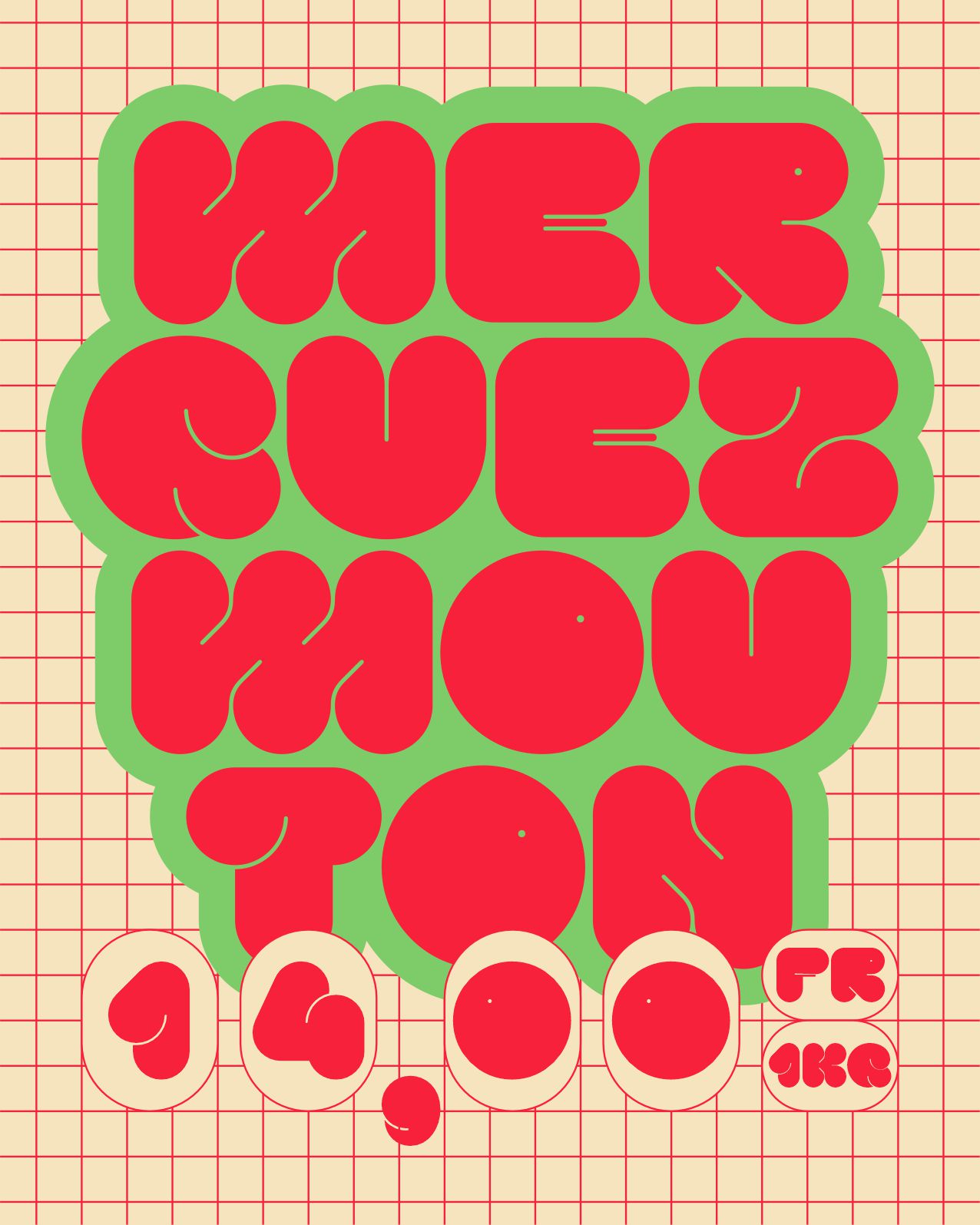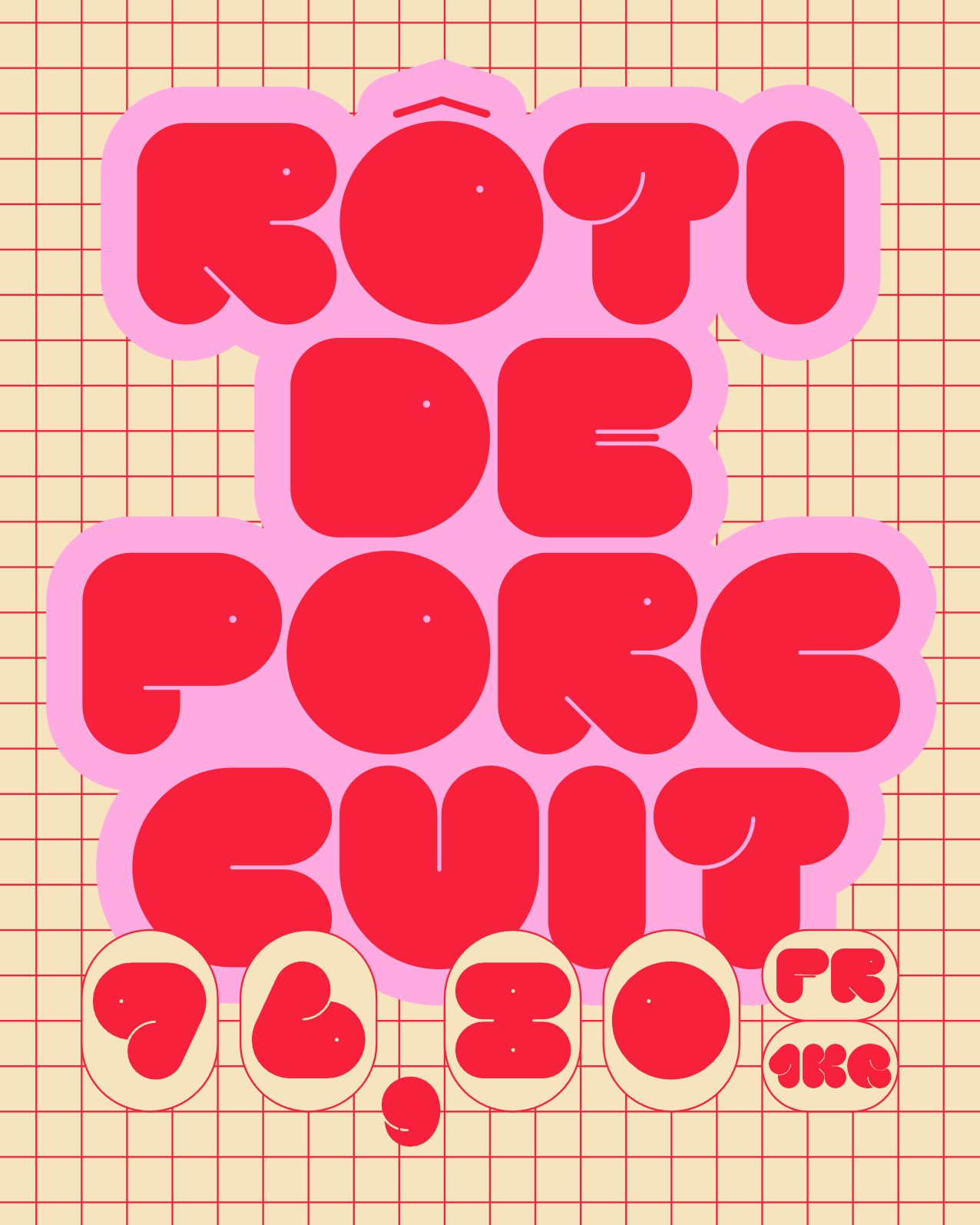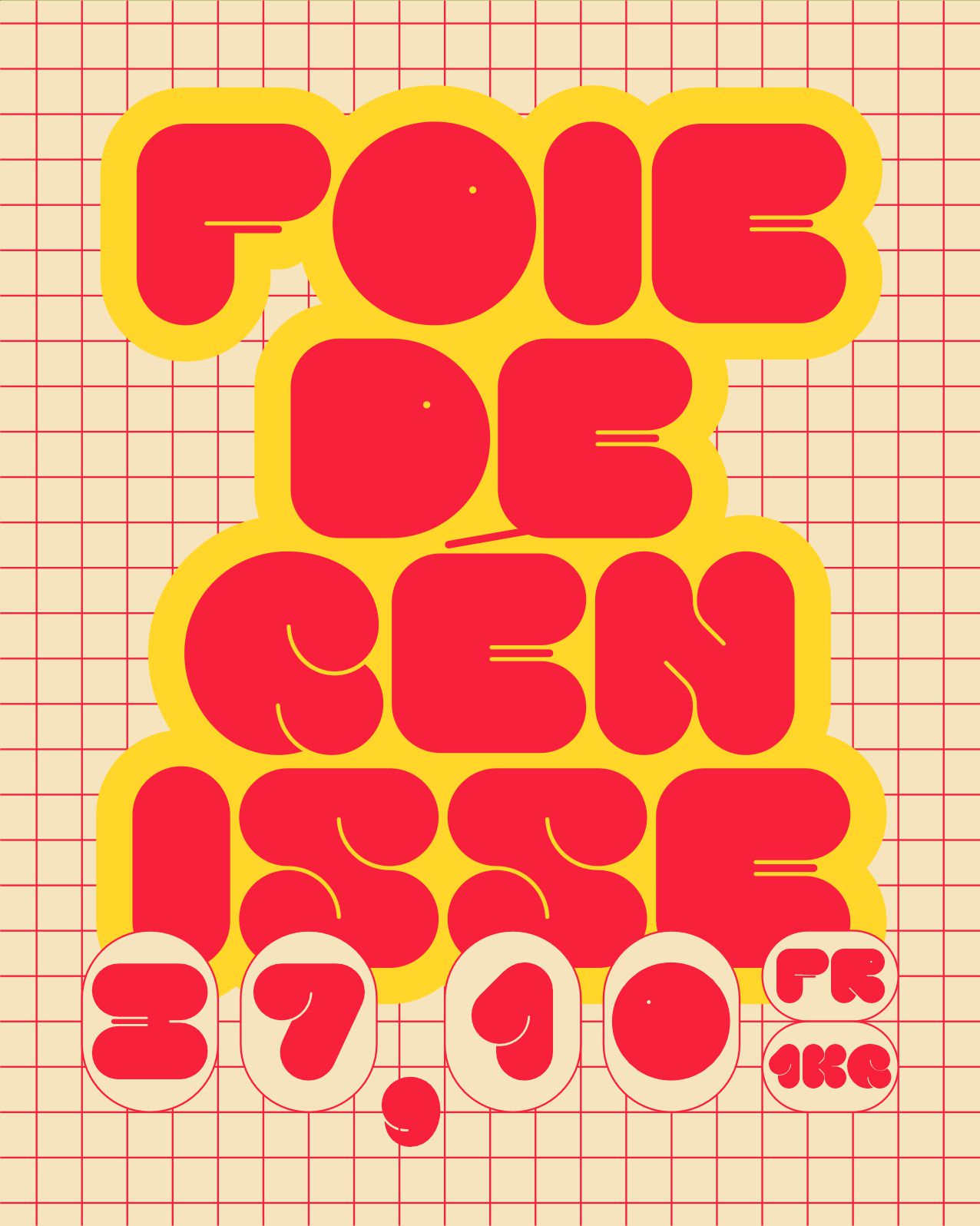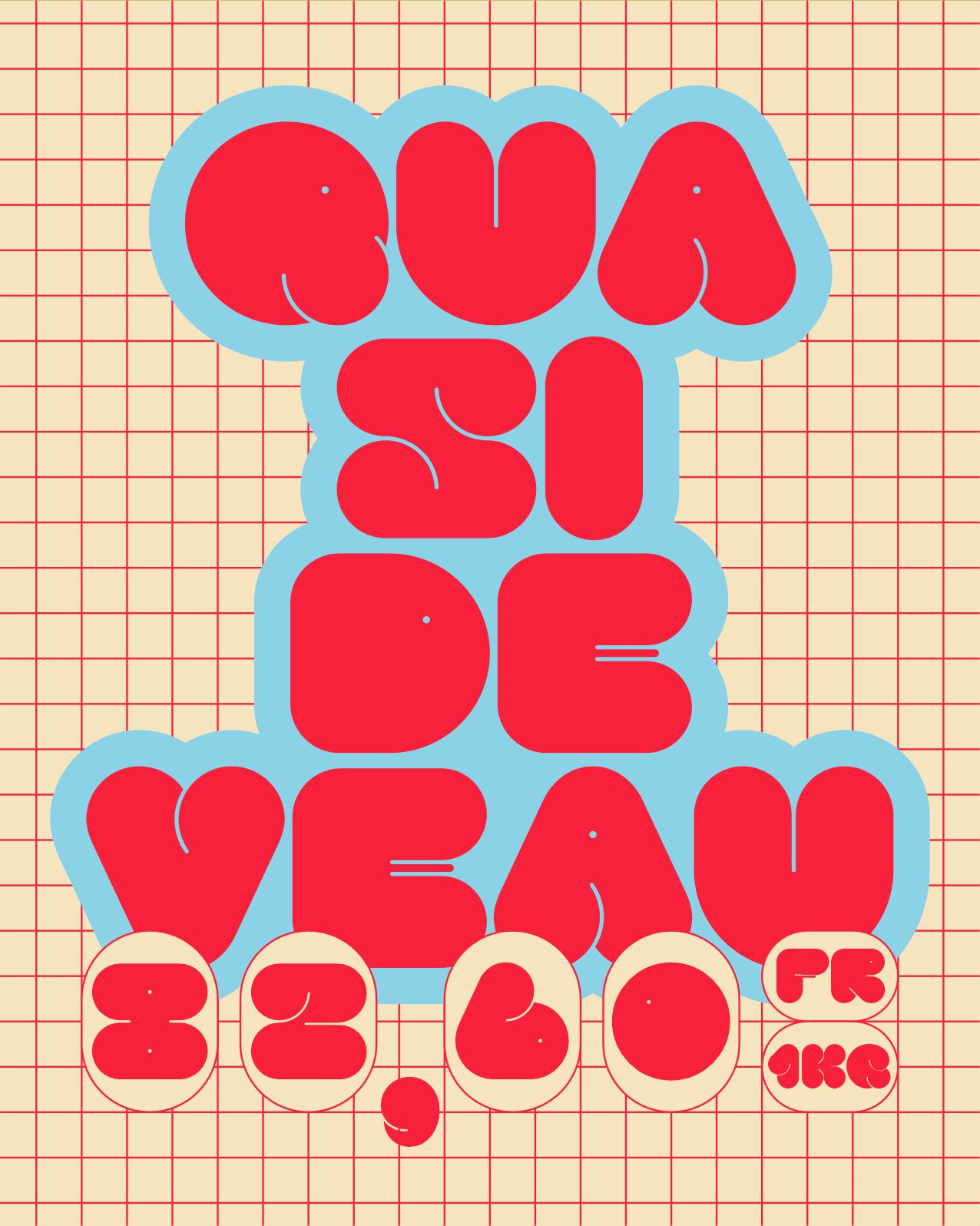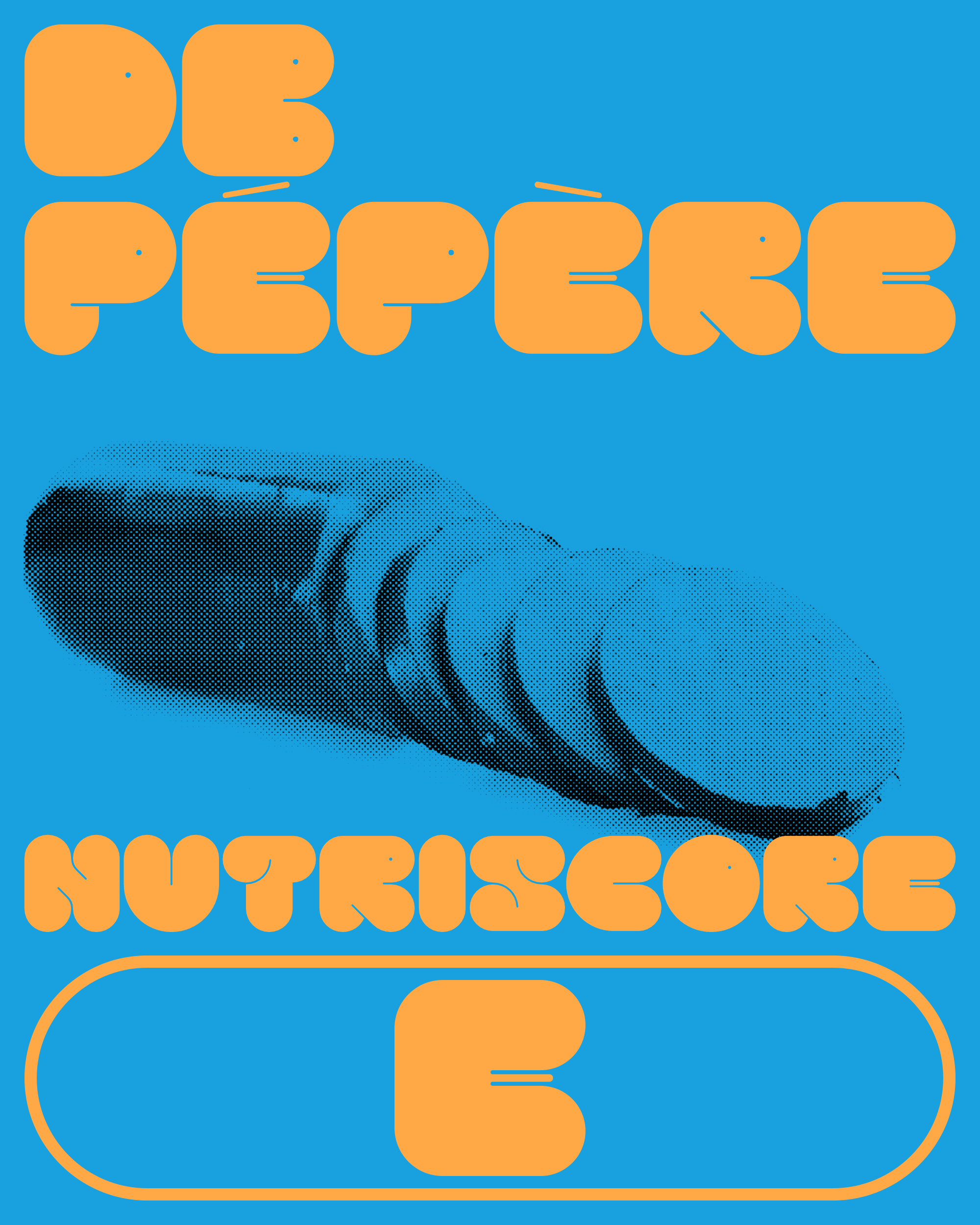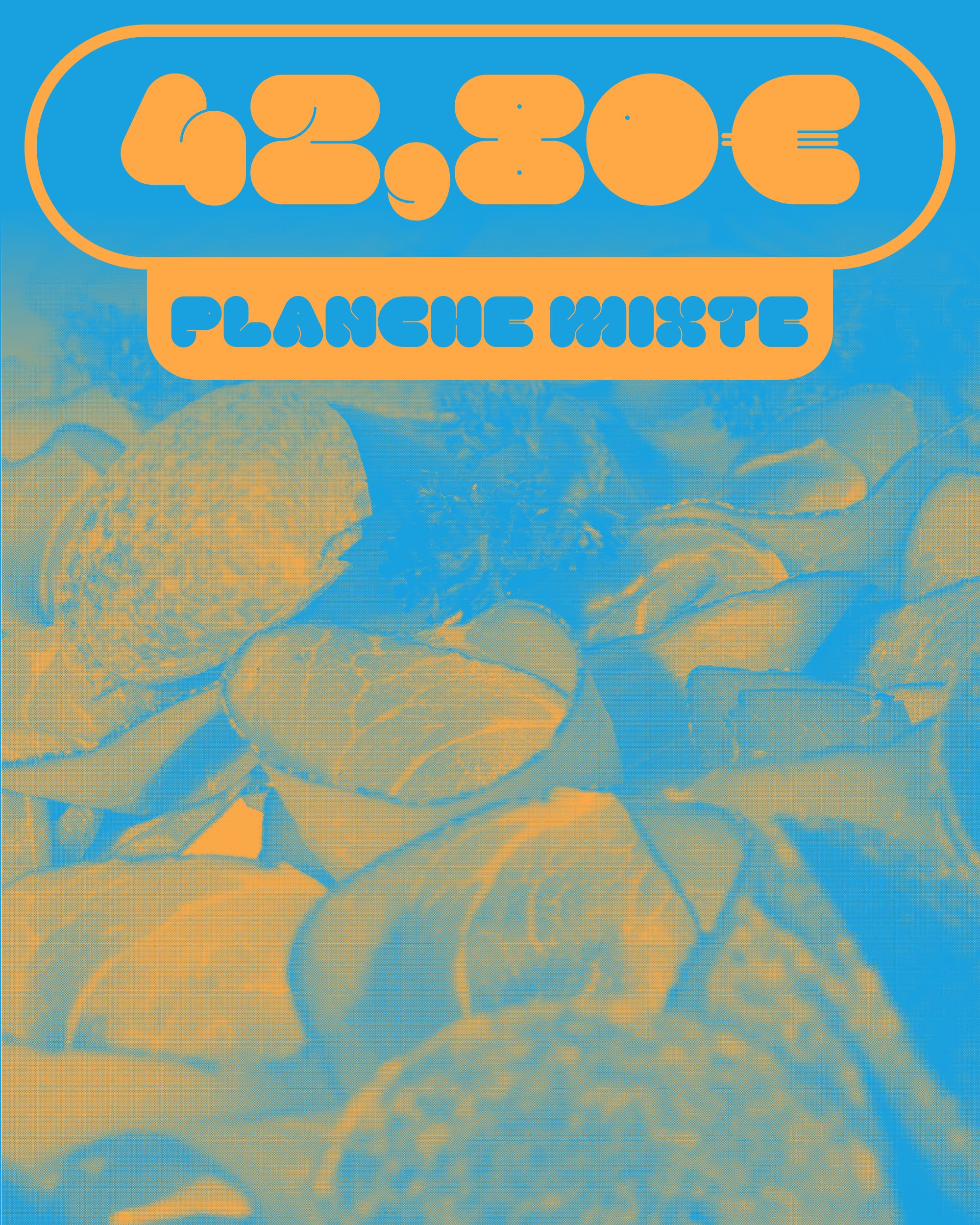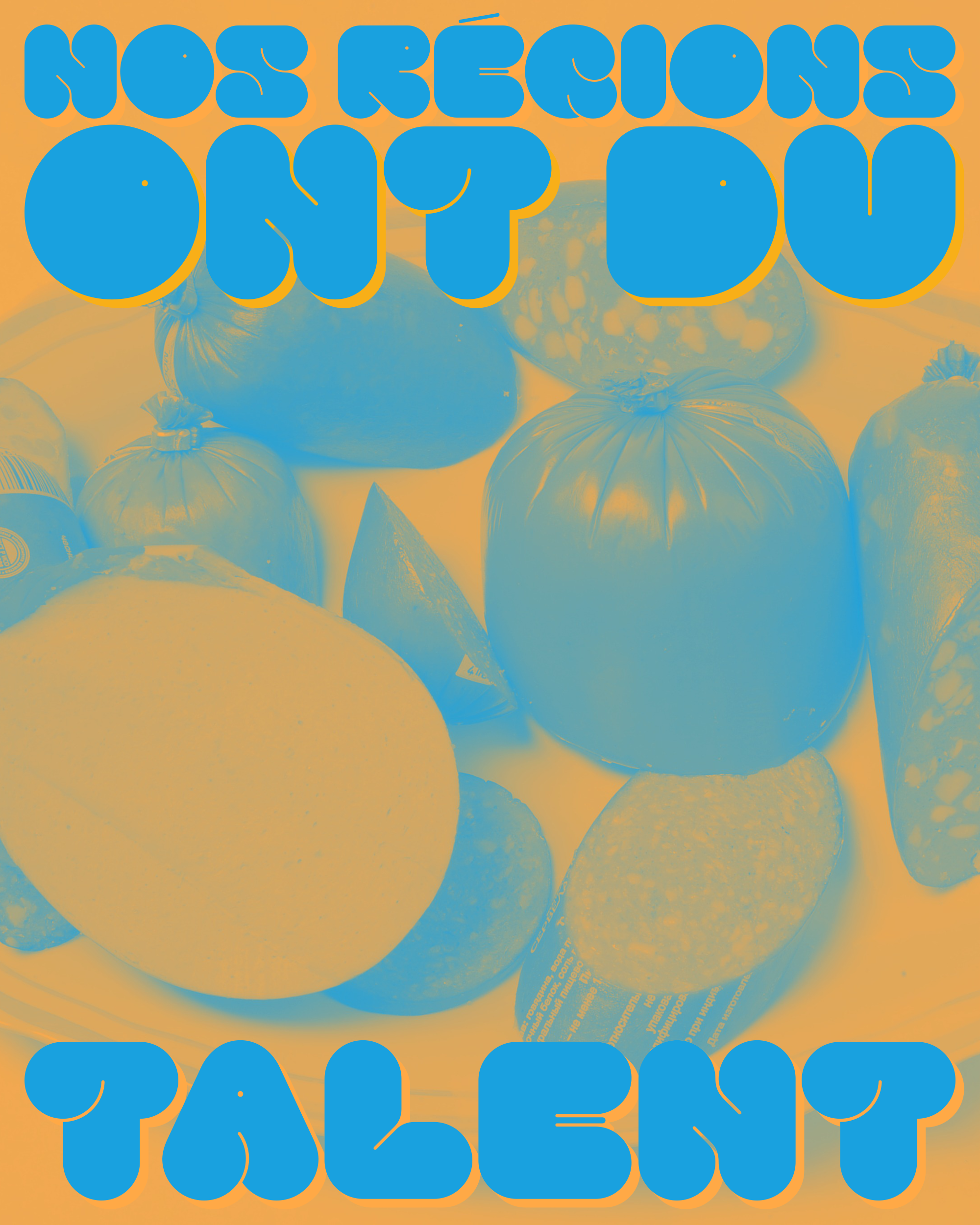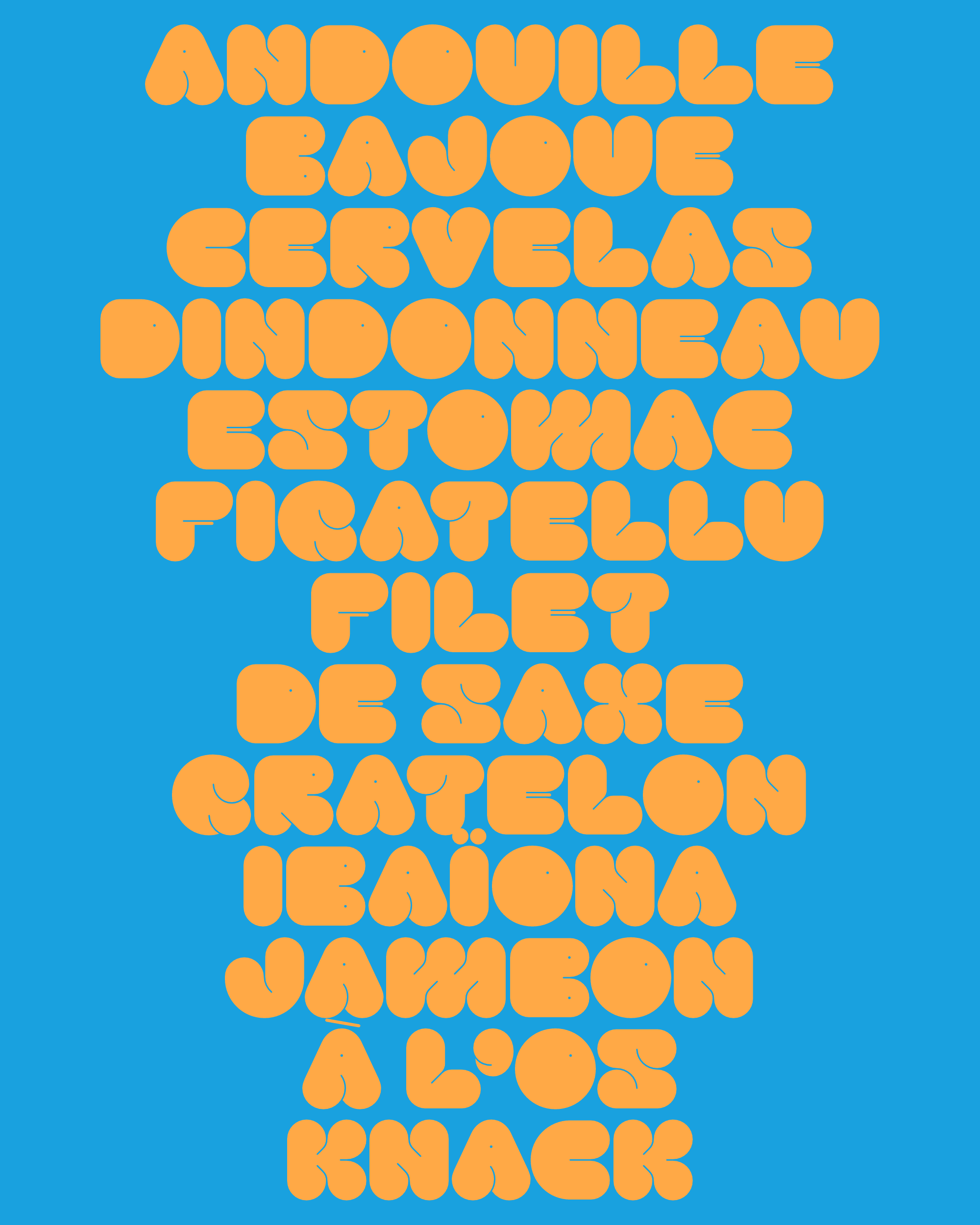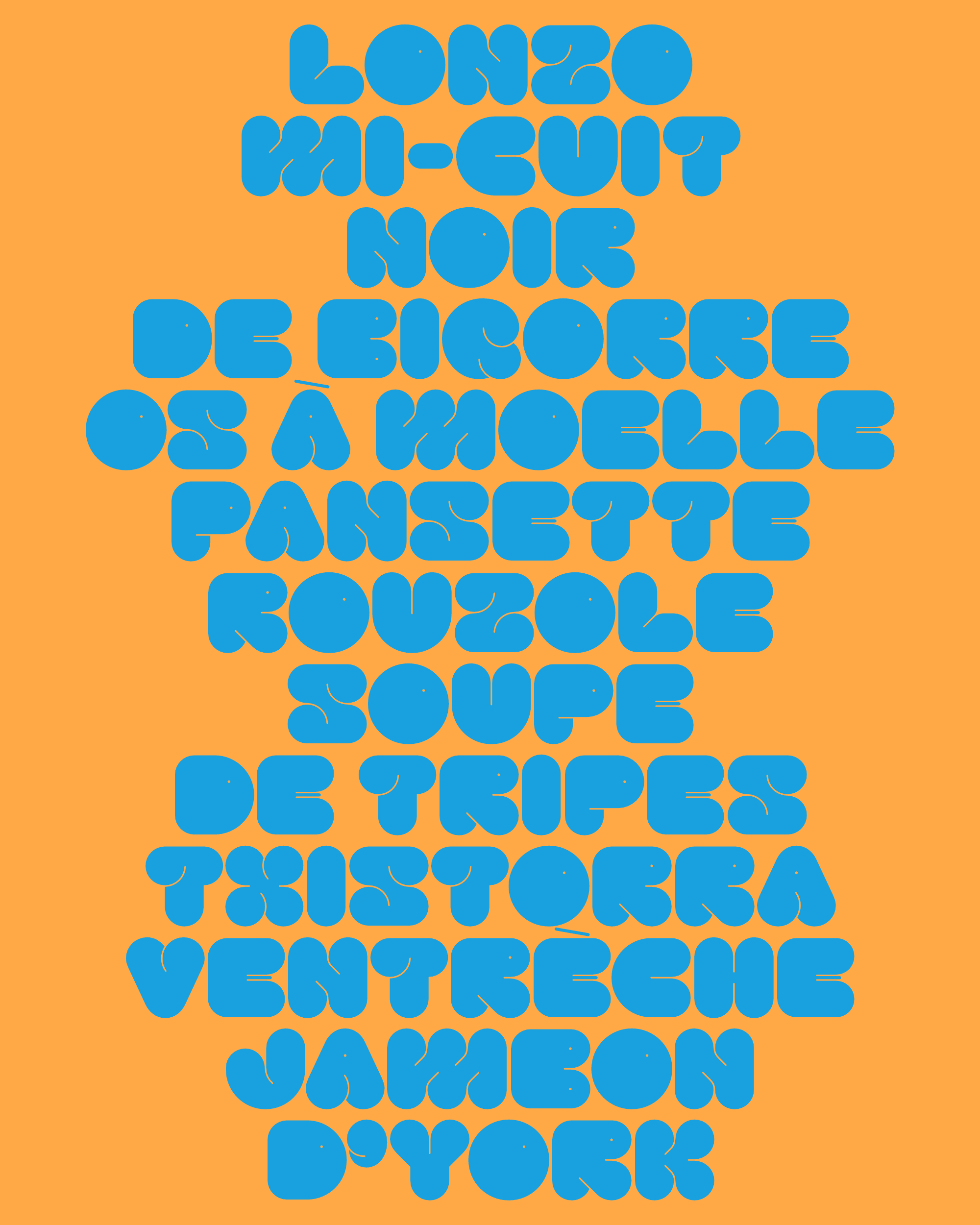
Pépère
Pépère is a character originally developed for Rond, the restaurant at La Montgolfière, the social sports club on Paris’s Canal Saint-Martin. Pépère has no restrictions: he’s a bon vivant, who loves bingeing and gargantuan feasts. He never fails to declaim his favorite adage: “Fat is life”. Probably the most caloric character in your library.